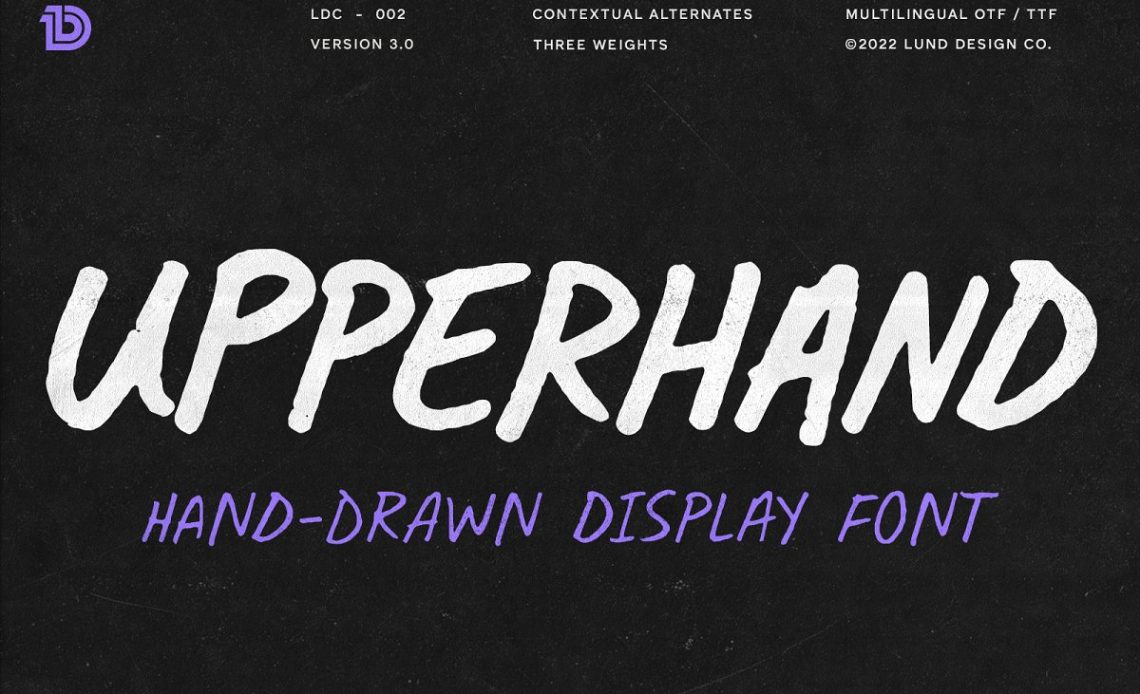
Are you tired of the same old fonts on your designs? Do you want to make your headlines stand out with a unique touch? Look no further than UPPERHAND Handwritten Font, the best font style for sketch projects.
Created by the talented Andrew Lund, UPPERHAND is a hand-drawn display typeface that exudes confidence and organic flair. Its strong lines and bold strokes make it perfect for eye-catching headlines, while its handwritten style adds a touch of personality and texture to any project.
One of the best features of UPPERHAND is its versatility. It includes accents, multilingual characters, and is designed to use both cases interchangeably, giving you the flexibility to use it in a broad range of applications. Whether you're creating logos, social media graphics, or branding materials, UPPERHAND is sure to make your text look hand-made and unique.
But UPPERHAND isn't just a beautiful font - it's also incredibly functional. Its clean lines and legibility make it easy to read even at smaller sizes, while its boldness makes it perfect for emphasizing key messages and headlines.